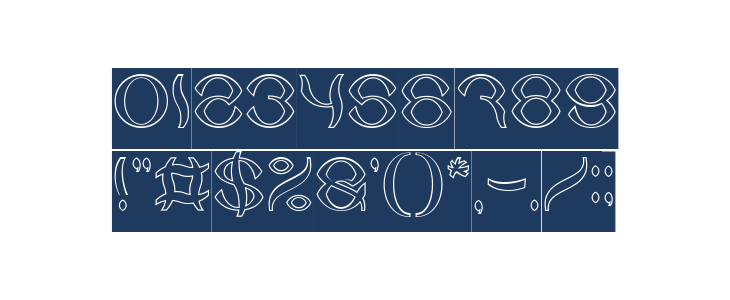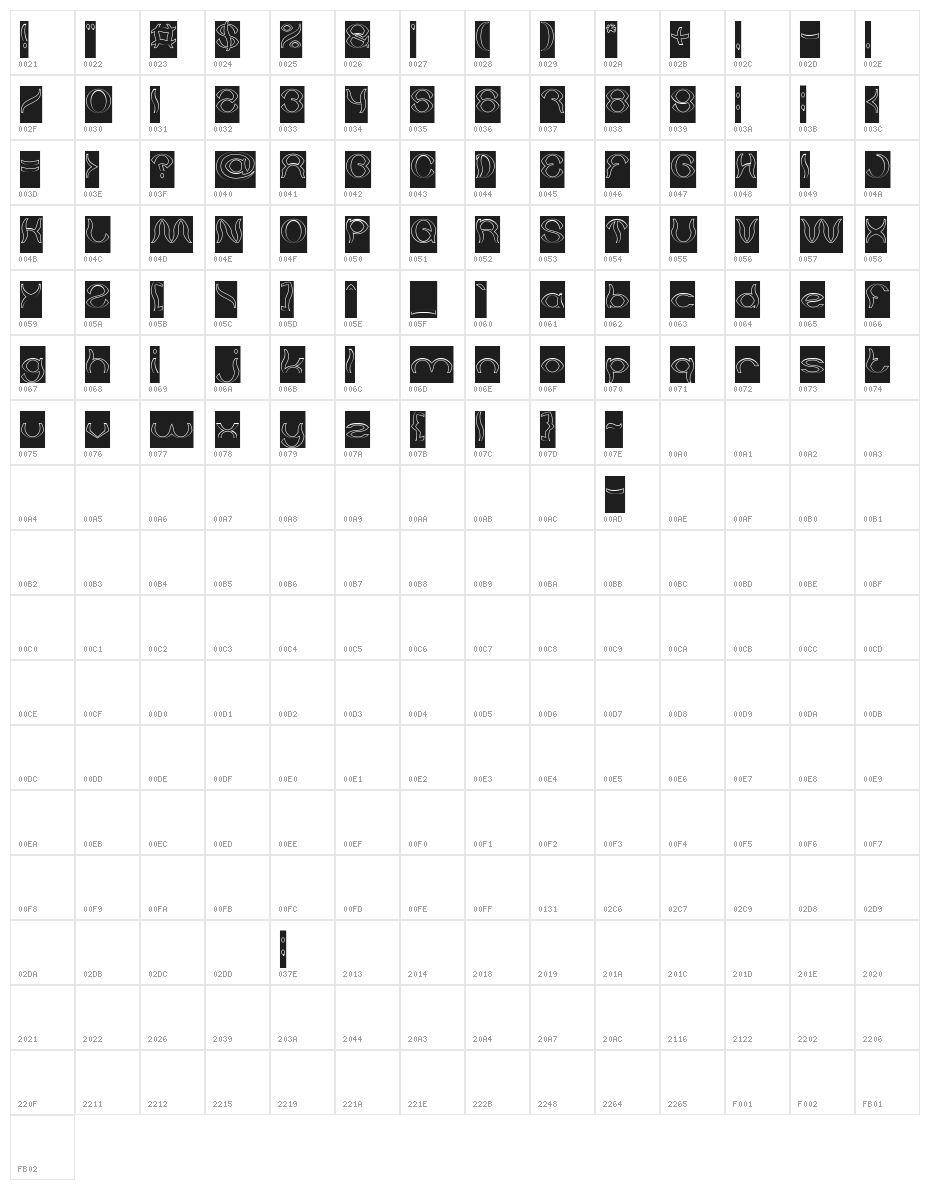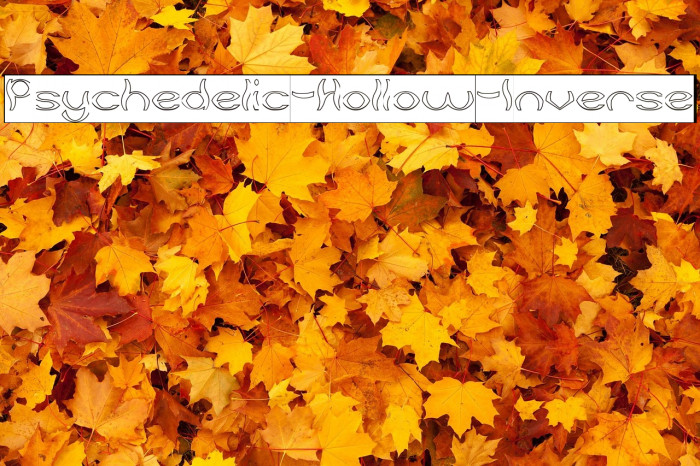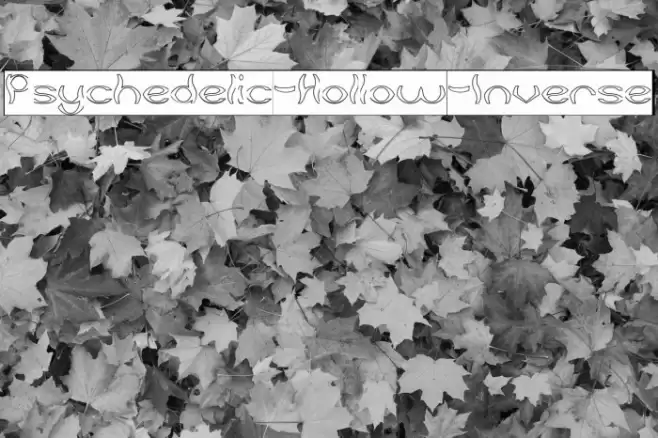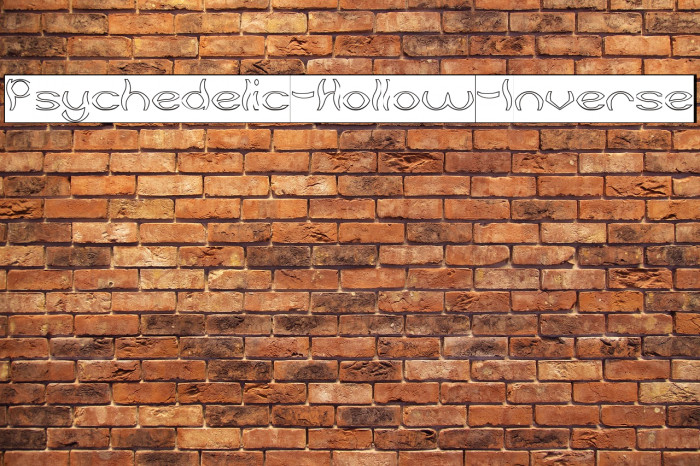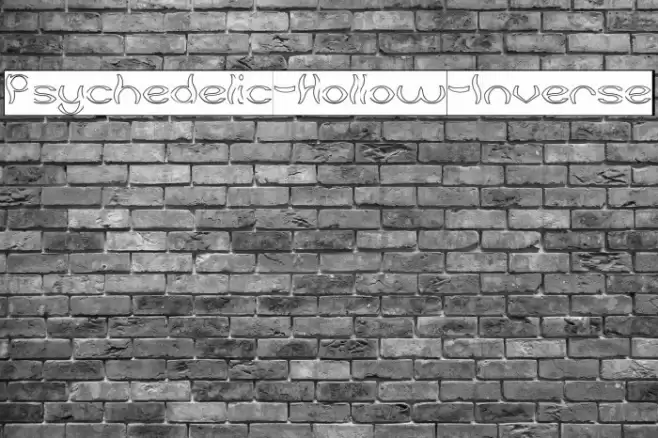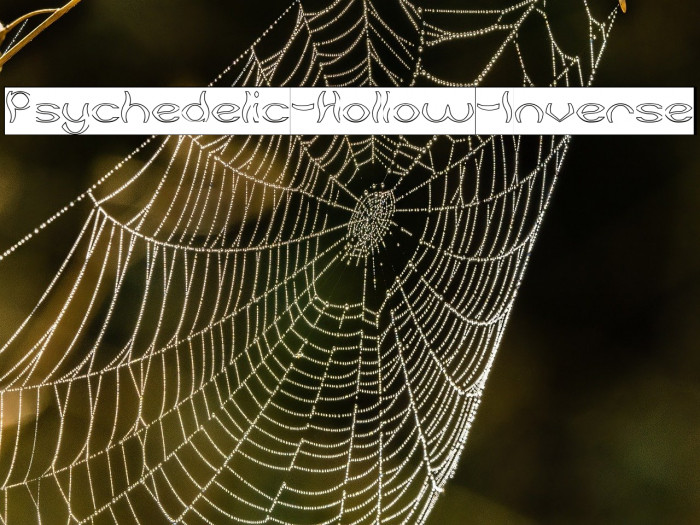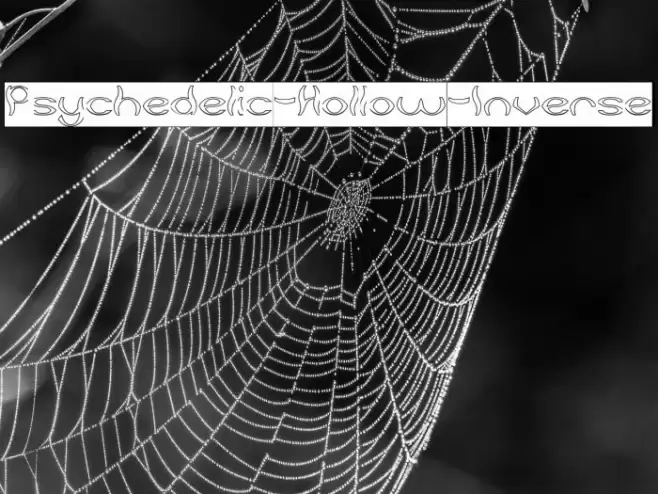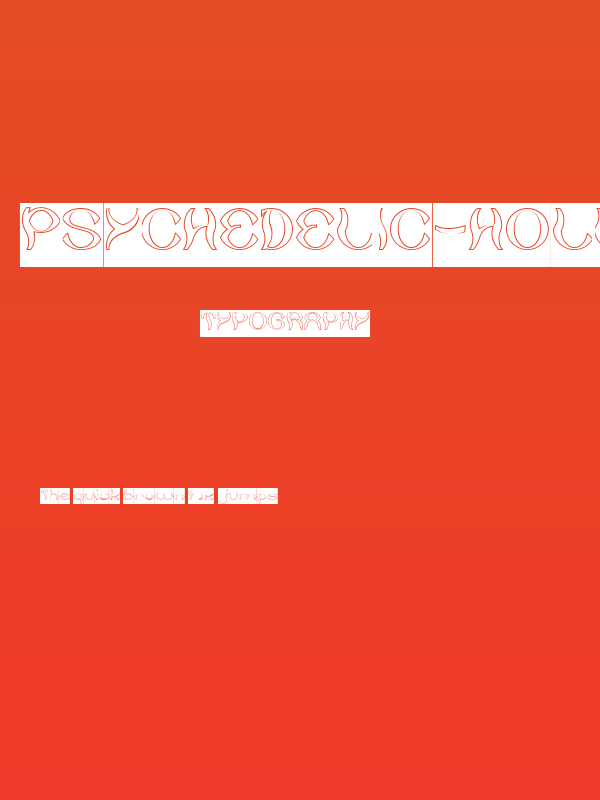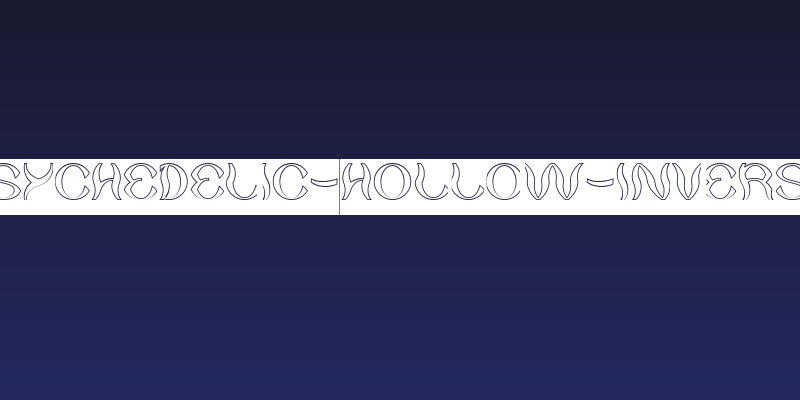
Psychedelic-Hollow-Inverse Font
Psychedelic-Hollow-Inverse Description
This font features a unique, hollow design with an inverse color scheme, creating a striking visual effect. The characters are outlined with a consistent stroke width, giving them a psychedelic and artistic appearance. The uppercase letters have a bold presence, while the lowercase letters maintain a similar style but with a slightly more delicate touch. The numbers and special characters follow the same design principles, ensuring a cohesive look across all glyphs. The font's playful and unconventional style makes it stand out, ideal for creative projects that require a distinctive and eye-catching typeface.
Overall StylePsychedelic, Artistic
Proposed ProjectsIdeal for album covers, posters, event flyers, and any design project seeking a bold, artistic touch.